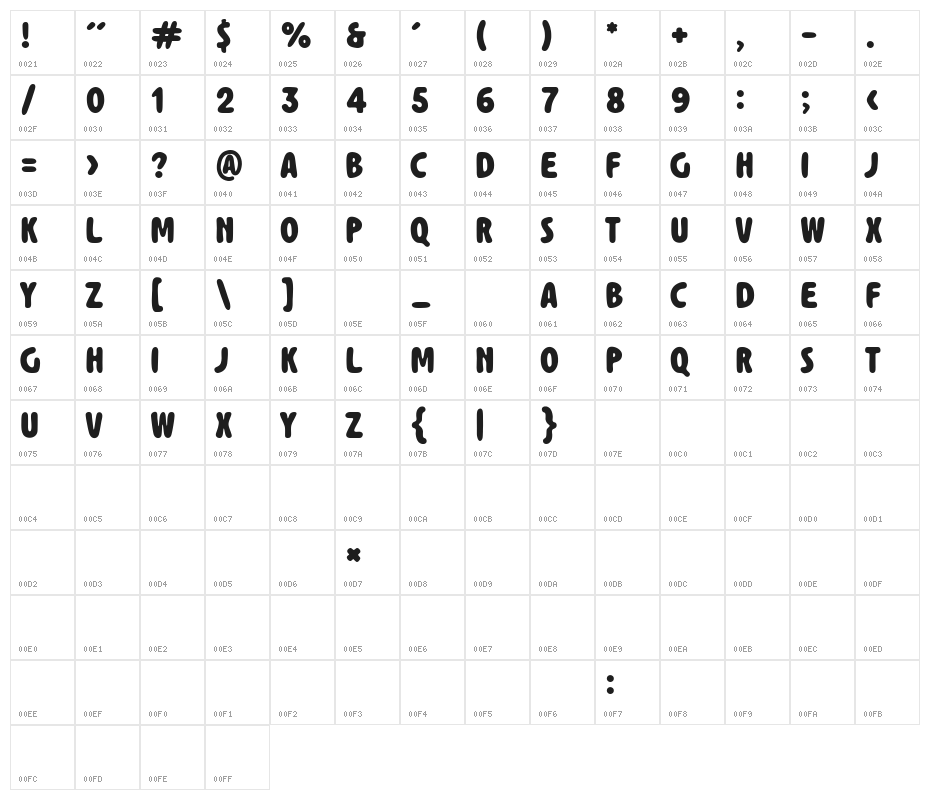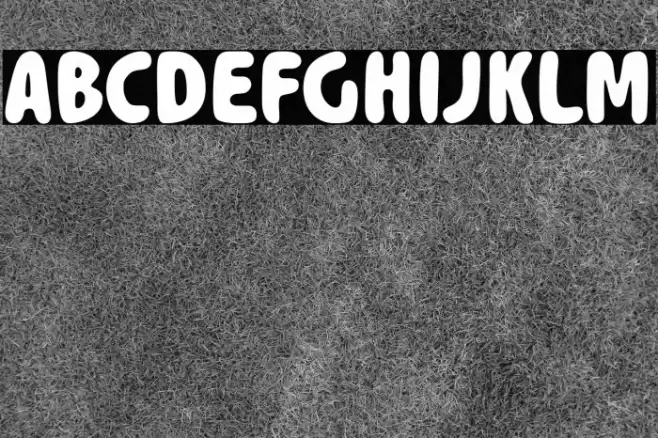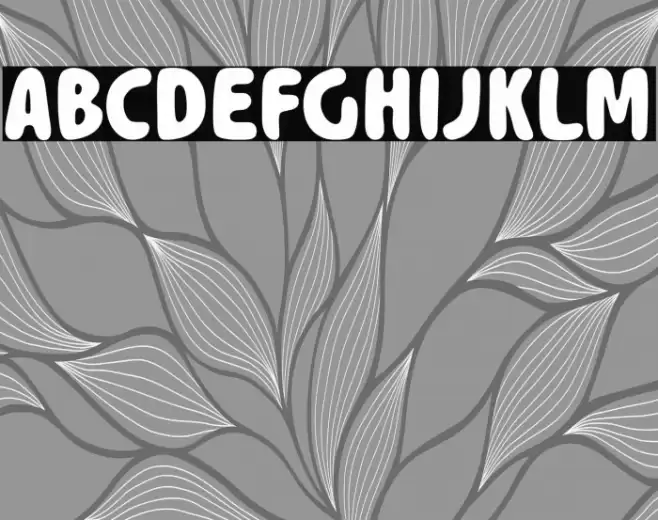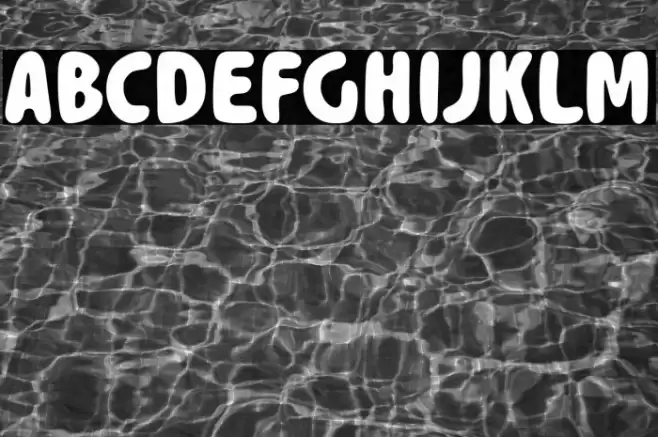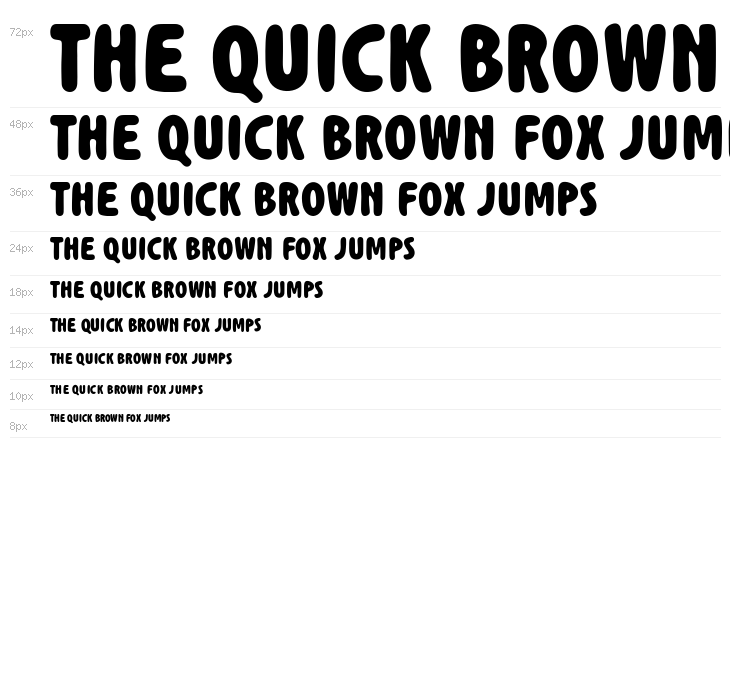
Candle Quotes Font
Candle Quotes Description
This playful and bold font features rounded, thick strokes that give it a friendly and approachable appearance. The characters are uniformly wide, with a consistent weight that adds to its boldness. The rounded edges and lack of sharp angles contribute to a soft, almost bubbly aesthetic. This font is highly legible, making it suitable for a variety of display purposes. The uniformity in character width and height ensures a cohesive look across all text. Its whimsical style is perfect for projects that require a touch of fun and creativity.
| Proposed Projects | Ideal for children's books, playful branding, event posters, and creative social media graphics. |